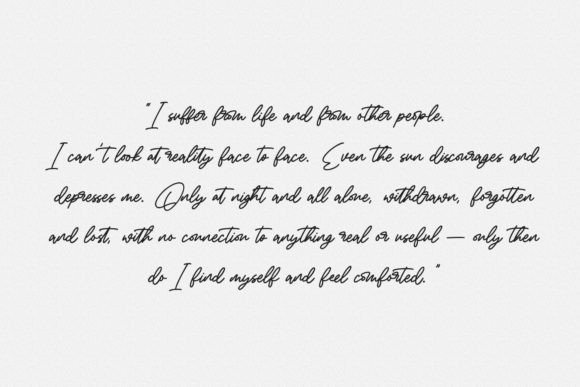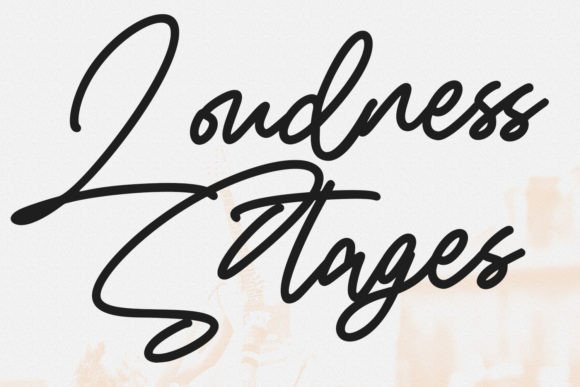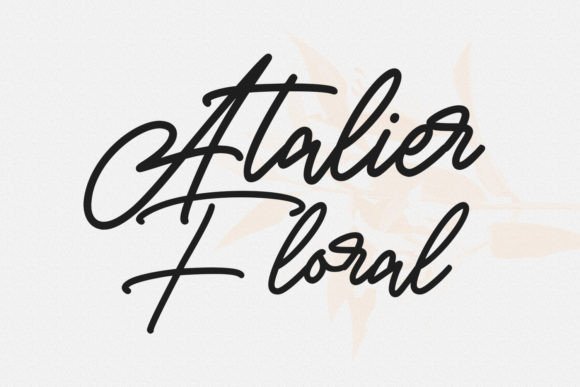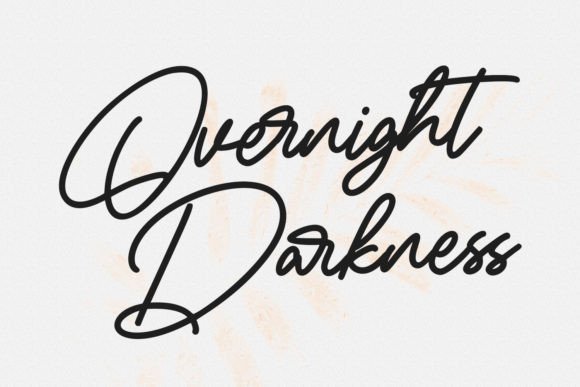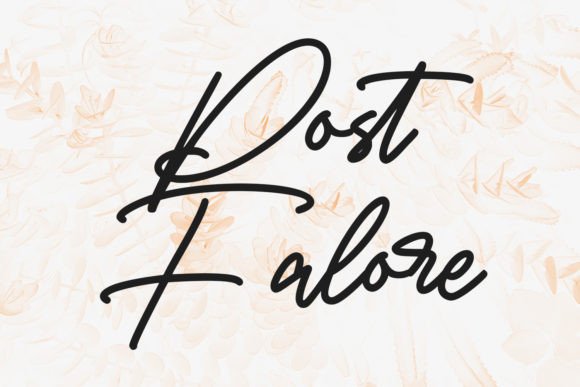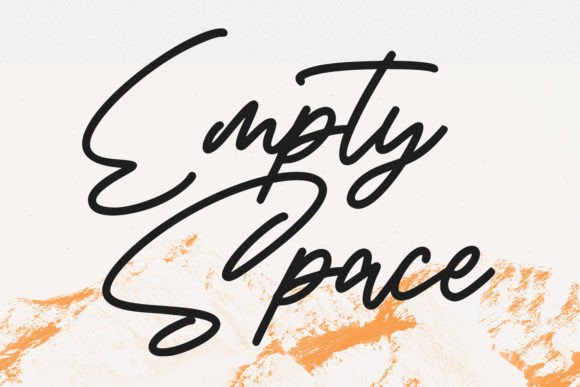
Introducing Algroofys Font: The Modern Signature Script Font for Creative Minds
In the world of typography, a good font can make all the difference in creating stunning visual works. For designers, crafters, and creative enthusiasts, finding the perfect font that combines elegance, fun, and versatility can be a daunting task. However, with Algroofys Font, your search is over. This modern signature script font is designed to take your creative projects to the next level with its consistent mono-line strokes and fun characters.
What Makes Algroofys Font Stand Out?
Algroofys Font is not just another script font; it’s a comprehensive typographic solution for anyone looking to add a touch of sophistication and playfulness to their work. Here are some key features that make Algroofys stand out:
- Consistent Mono-line Strokes: The font boasts consistent mono-line strokes, providing a clean and elegant look to your text. This feature makes it perfect for creating logos, titles, and headings that require a touch of refinement.
- Fun Characters: Algroofys doesn’t just stop at elegance; it also offers a range of fun characters that can add a playful twist to your designs. These characters are perfect for projects that require a bit of whimsy and creativity.
- Versatility: Whether you’re working on a logo design, social media graphics, movie titles, book titles, or any other project, Algroofys Font is up to the task. Its versatility makes it an excellent choice for both short and long texts.
- Pairing Options: Algroofys works beautifully with sans or serif fonts, making it an excellent secondary font for your designs. This feature allows you to create visually appealing text hierarchies that capture your audience’s attention.
Use Cases for Algroofys Font
The possibilities with Algroofys Font are endless, thanks to its versatility and range. Here are some use cases where Algroofys truly shines:
- Logo Design: Create memorable and elegant logos that stand out. Algroofys’ unique strokes and characters can help you craft a logo that reflects your brand’s personality.
- Social Media Graphics: Elevate your social media presence with eye-catching graphics. Algroofys can add a touch of sophistication and fun to your posts, stories, and banners.
- Movie and Book Titles: Give your movie or book titles a professional and captivating look. Algroofys’ elegant strokes make it perfect for creating titles that grab attention.
- Branding and Packaging: Use Algroofys to create consistent branding across your products and packaging. Its clean and elegant look makes it suitable for a wide range of branding materials.
Tips for Getting the Most Out of Algroofys Font
To truly make stunning work with Algroofys Font, consider the following tips:
- Experiment with Pairings: Don’t be afraid to experiment with Algroofys paired with different sans or serif fonts. Finding the right combination can elevate your design to new heights.
- Play with Sizes: Algroofys looks great in various sizes, from large headings to smaller body text. Play with different sizes to create visual interest in your designs.
- Utilize Fun Characters: Make the most of Algroofys’ fun characters to add a playful twist to your designs. These characters can be used to draw attention or add personality to your text.